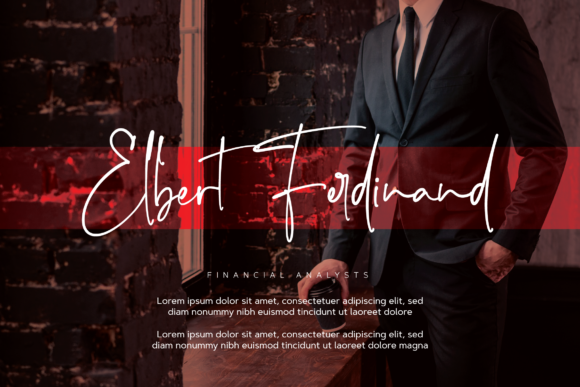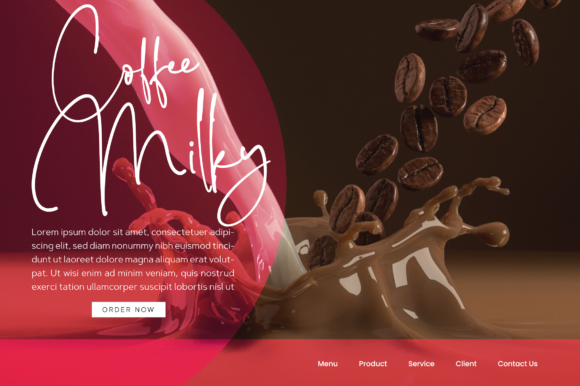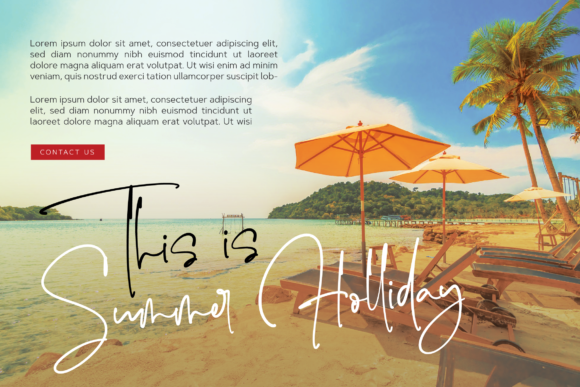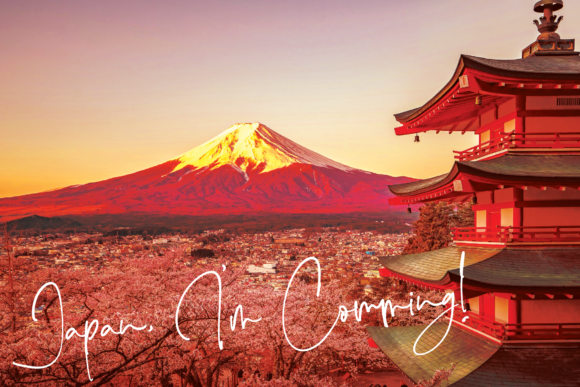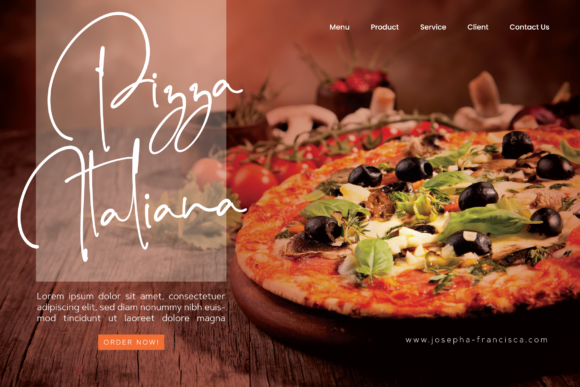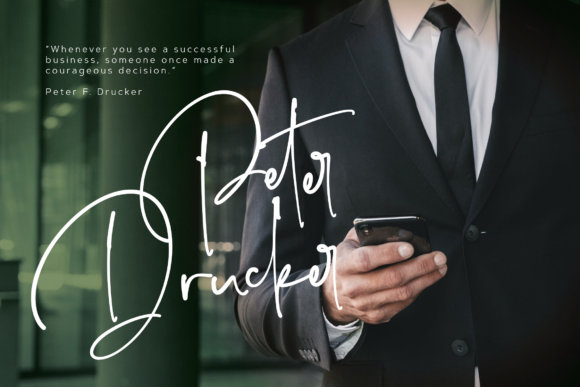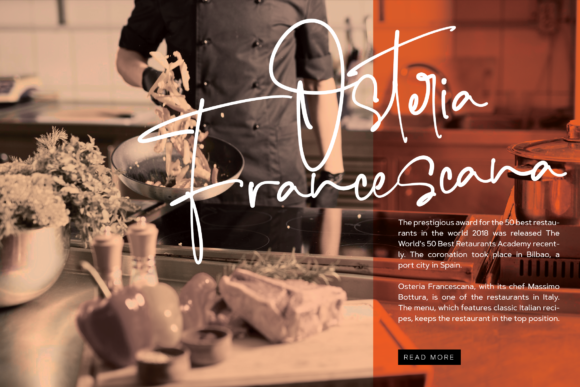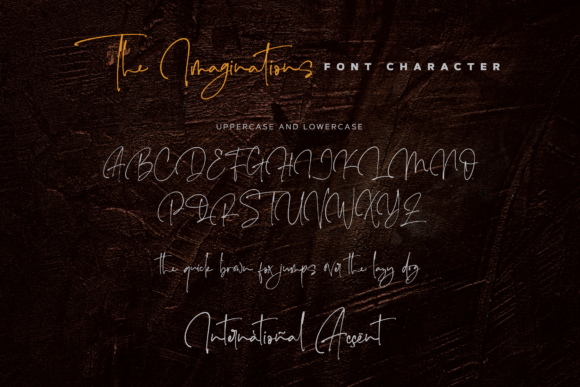
The Imaginations Font
About The Imaginations Font
The Imaginations is an incredibly elegant and classic handwritten font. This gentle font will look gorgeous on a variety of design ideas.